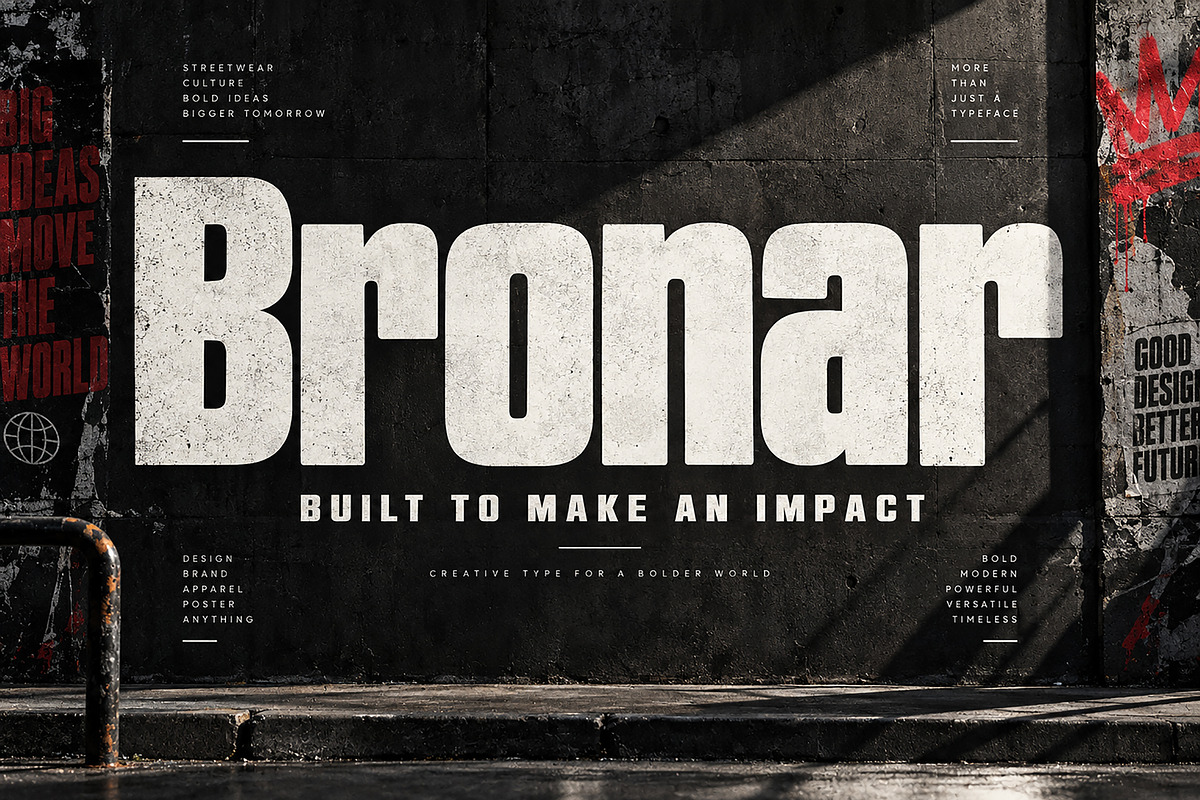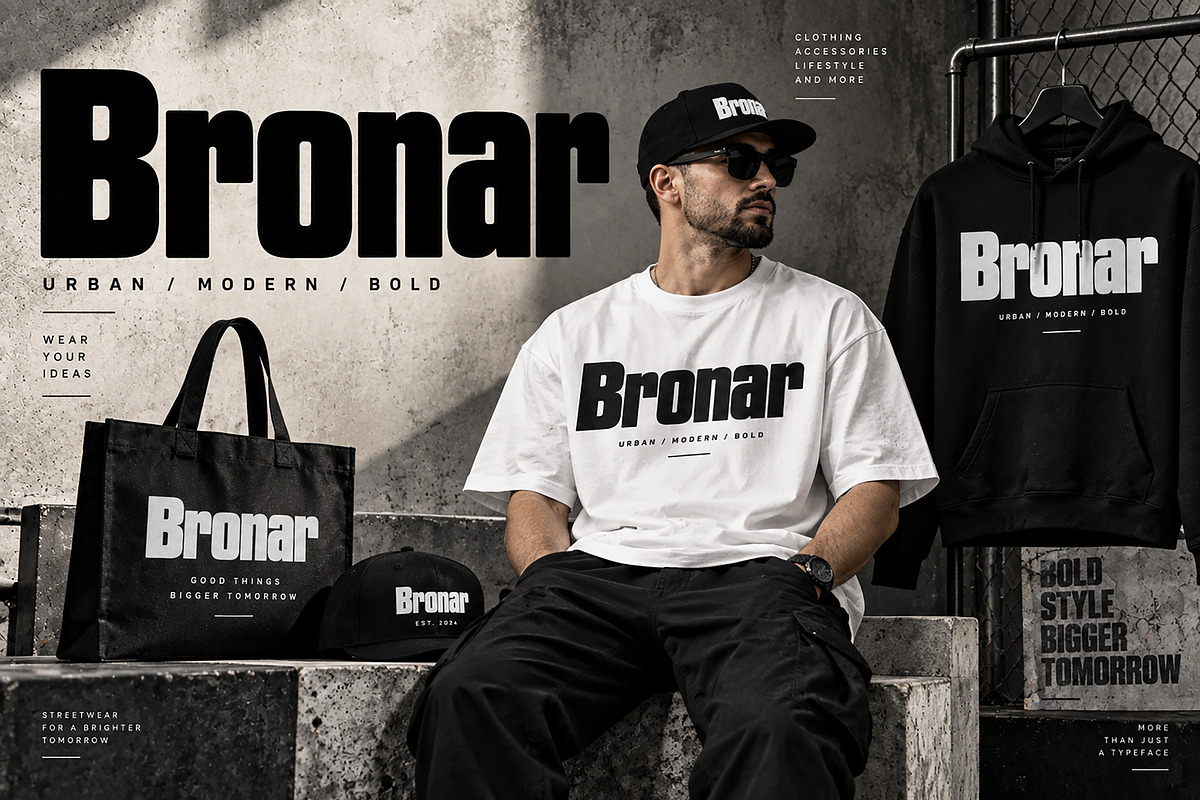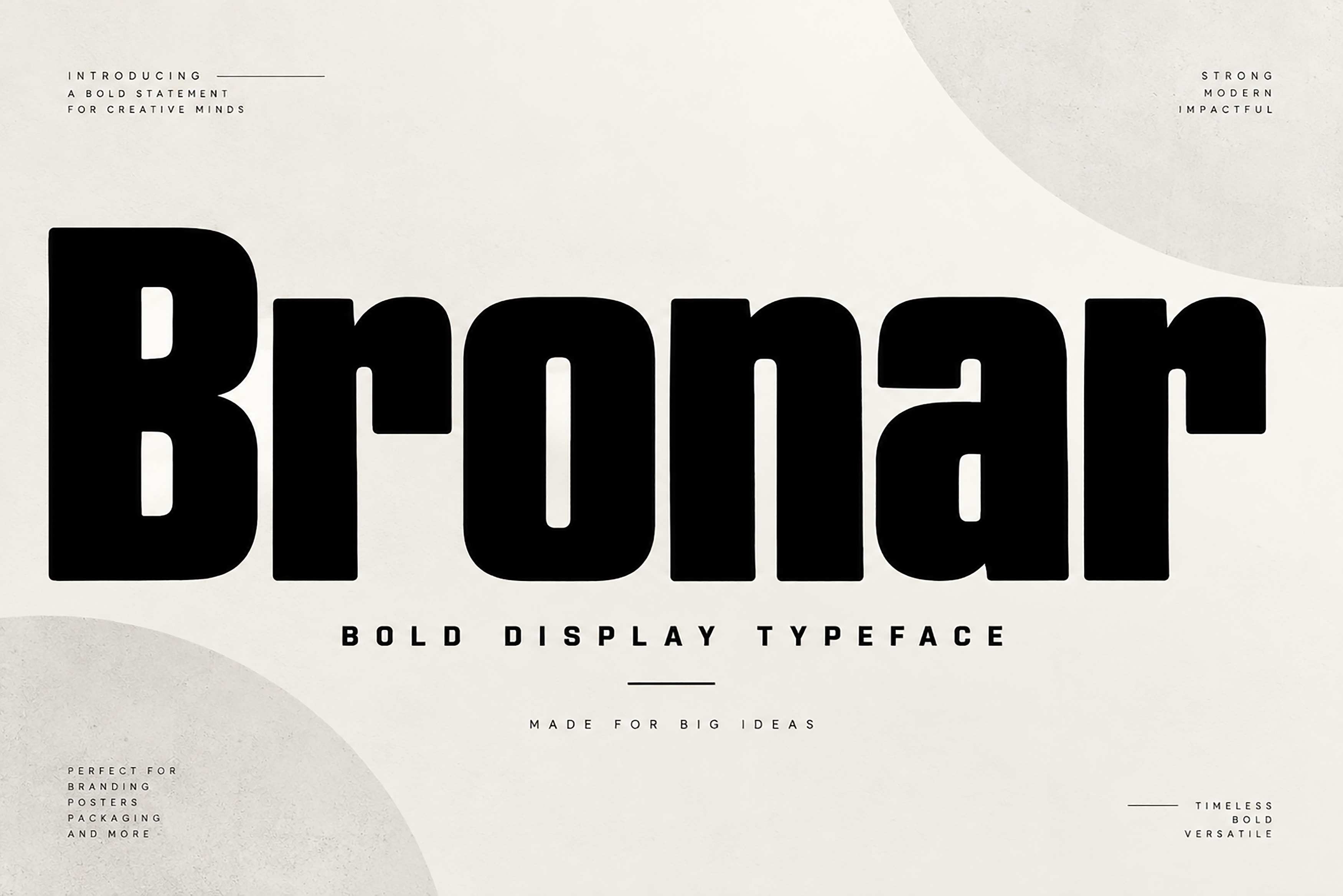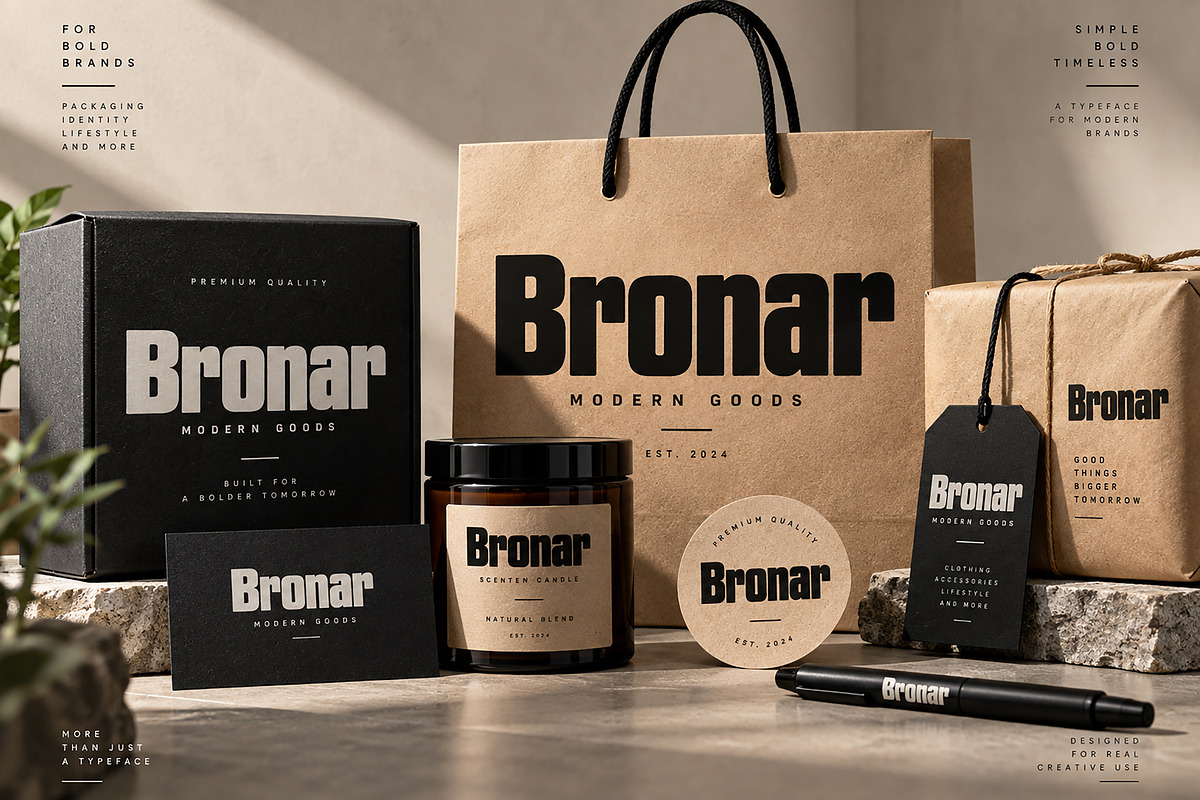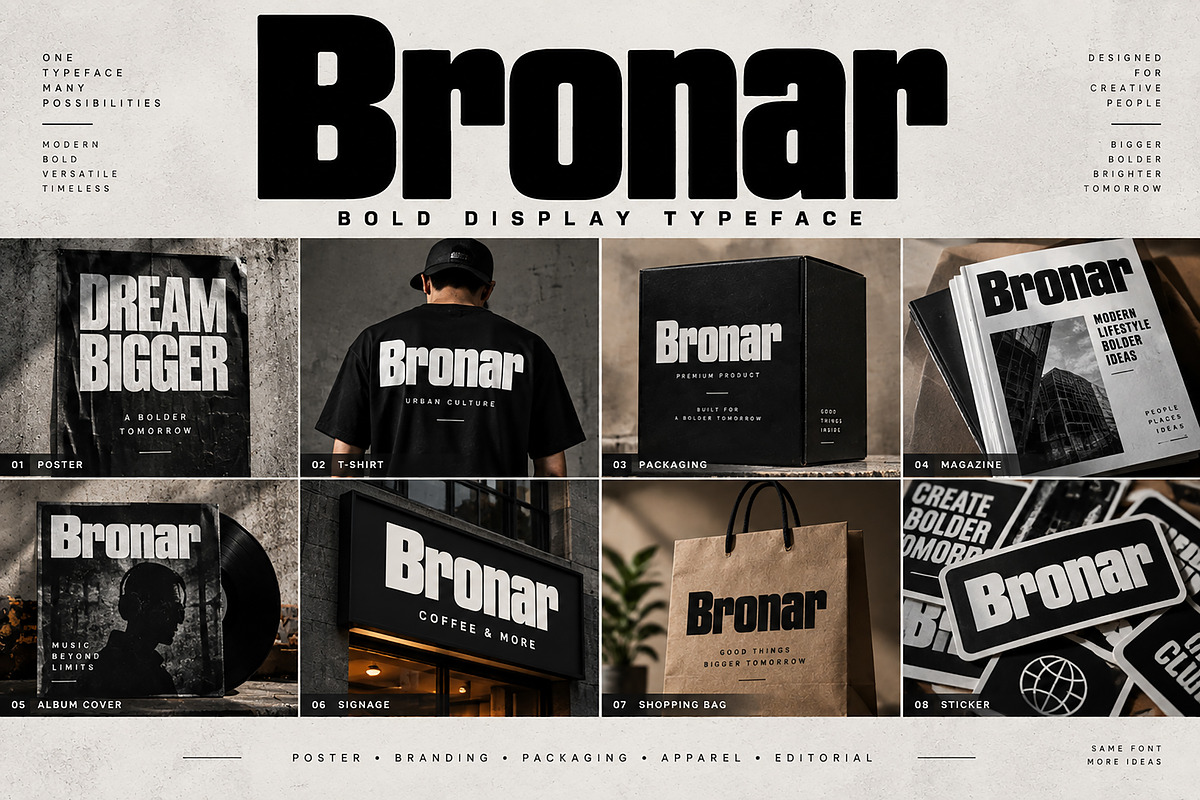
Bronar — Bold Condensed Display Font
Make a powerful visual statement with Bronar, a bold and impactful display typeface designed for projects that demand strong typography and instant visual presence.
With its heavy weight, compact proportions, and distinctive modern character, Bronar is ideal for creating attention-grabbing headlines, branding, posters, apparel graphics, packaging, editorial layouts, advertising designs, and more.
Its bold silhouette works especially well in large-scale typography, allowing your designs to feel modern, confident, urban, and visually striking.
Logo & Brand Identity
Posters & Advertising
Streetwear & Apparel
T-Shirt & Hoodie Designs
Packaging & Product Branding
Magazine & Editorial Design
Album & Music Artwork
Signage & Promotional Graphics
Headlines & Display Typography
Stickers & Merchandise
Creative Marketing Materials
Font Name: Bronar
Style: Bold Condensed Display
Bronar is made for designers who want bold impact, strong headlines, and memorable visual branding.